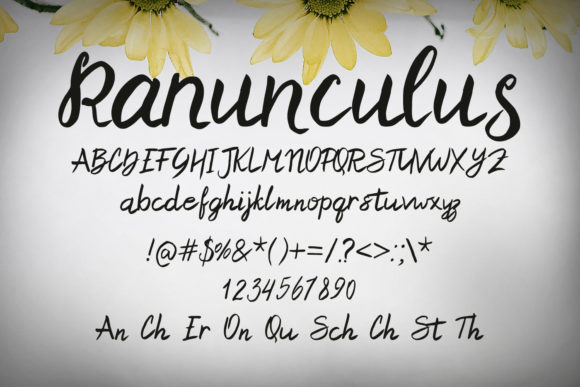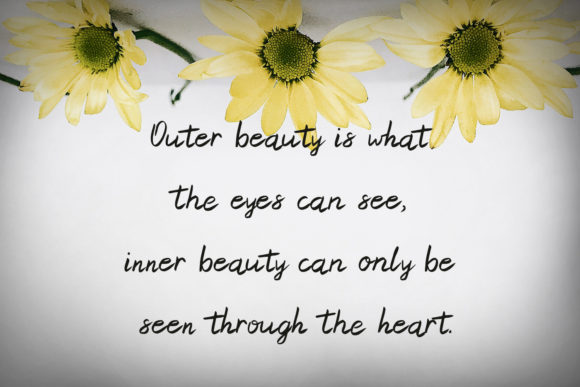
About Ranunculus Font
Ranunculus is a beautiful and delicate handwritten font. Created with care, this font looks gorgeous on a variety of designs requiring a personalized touch.